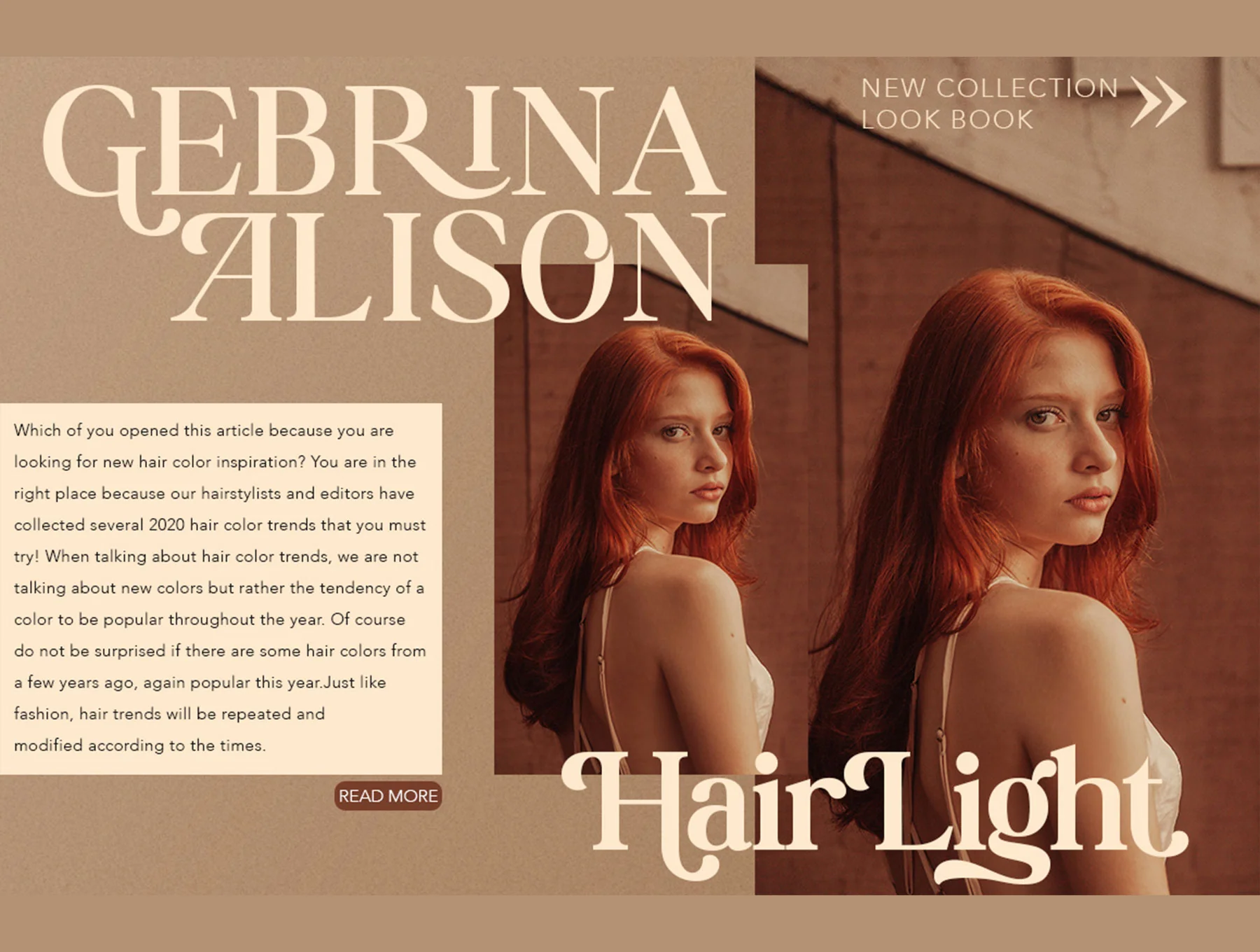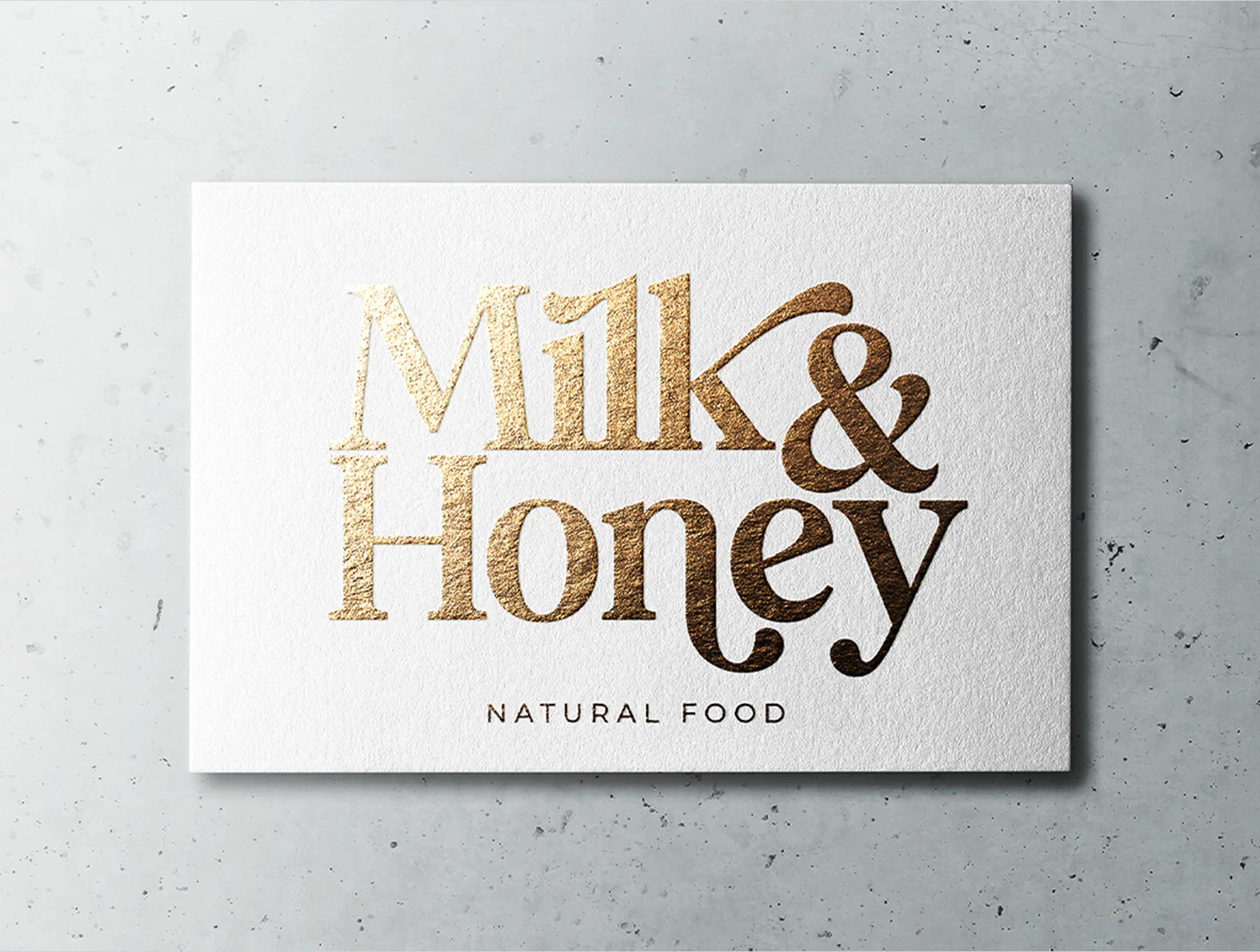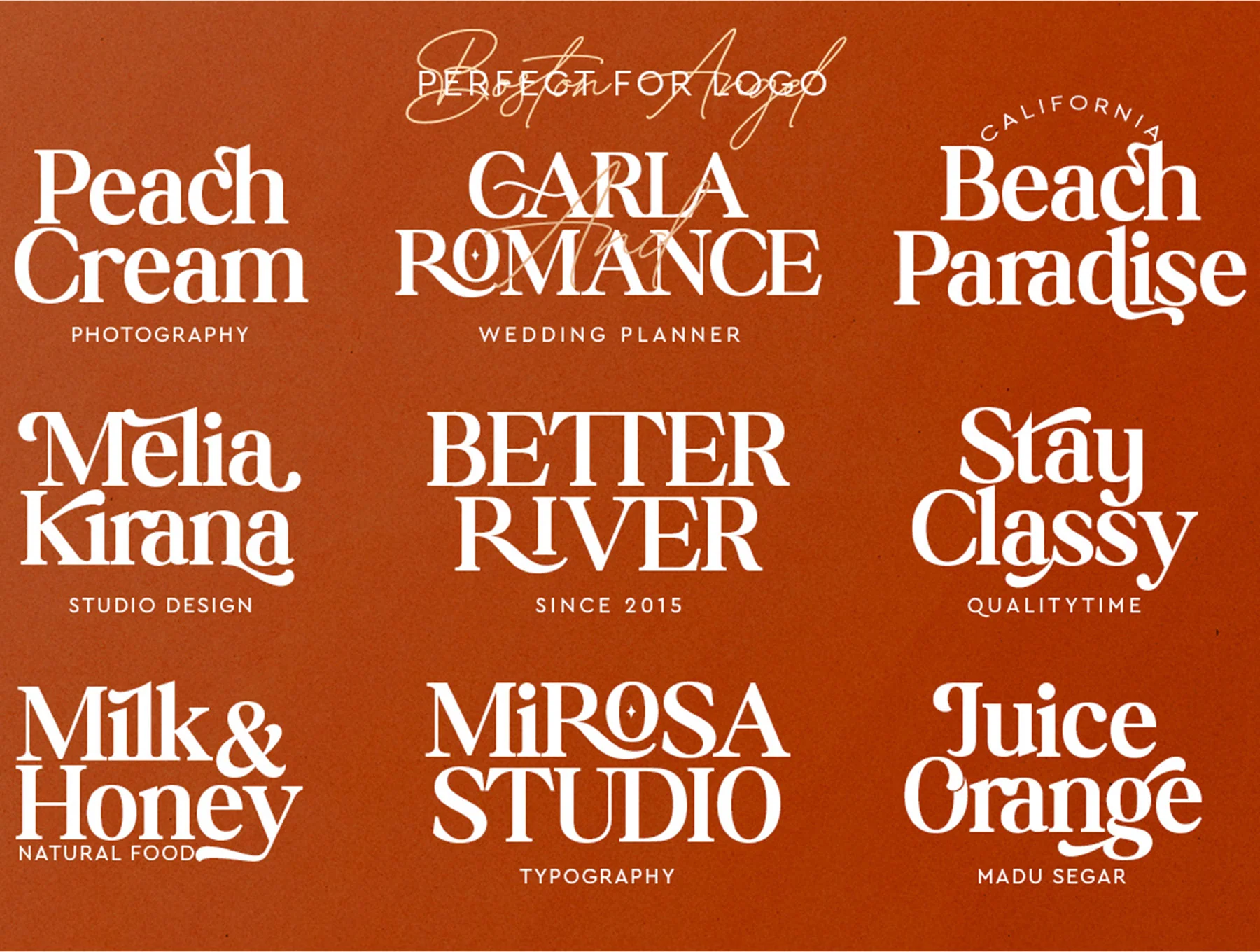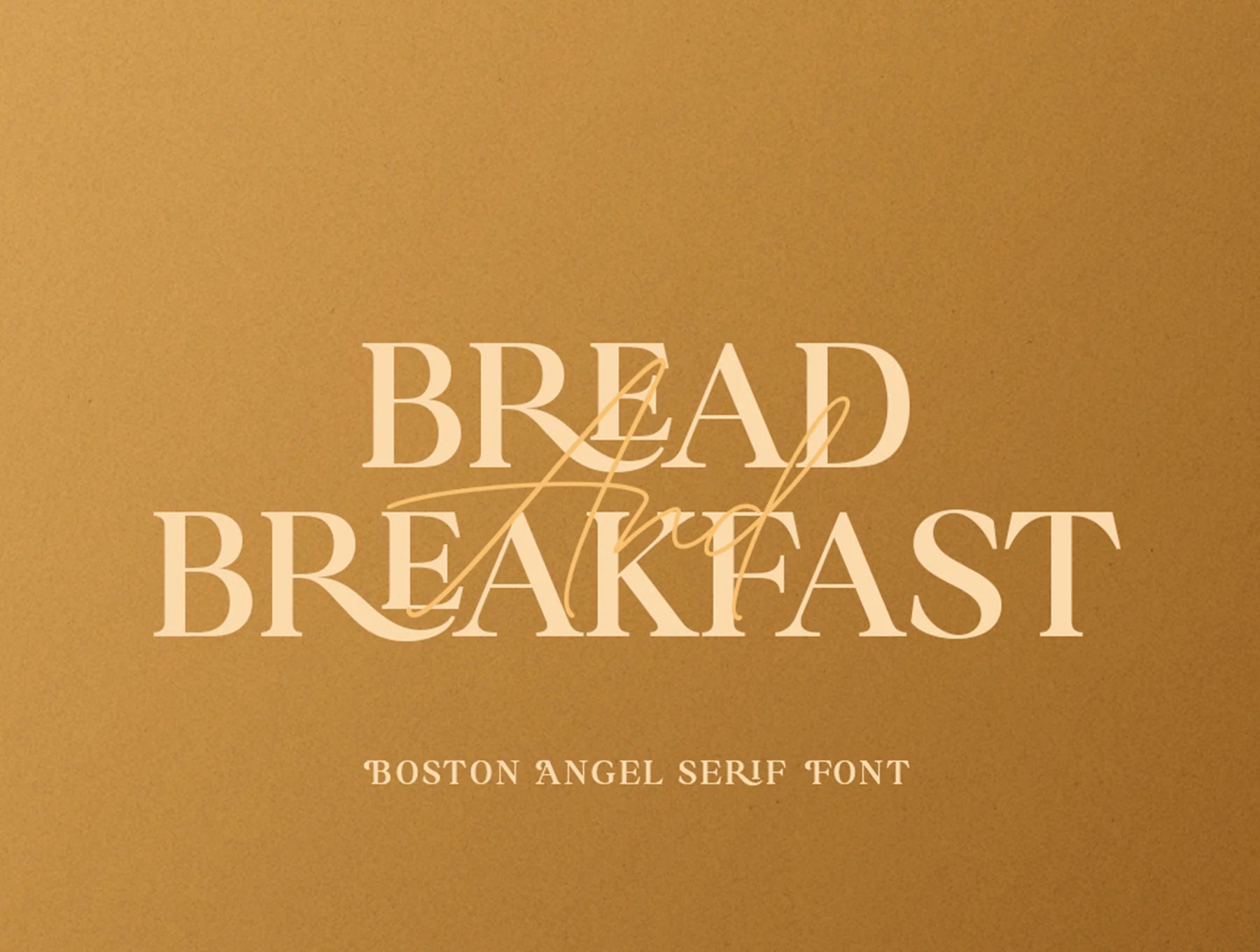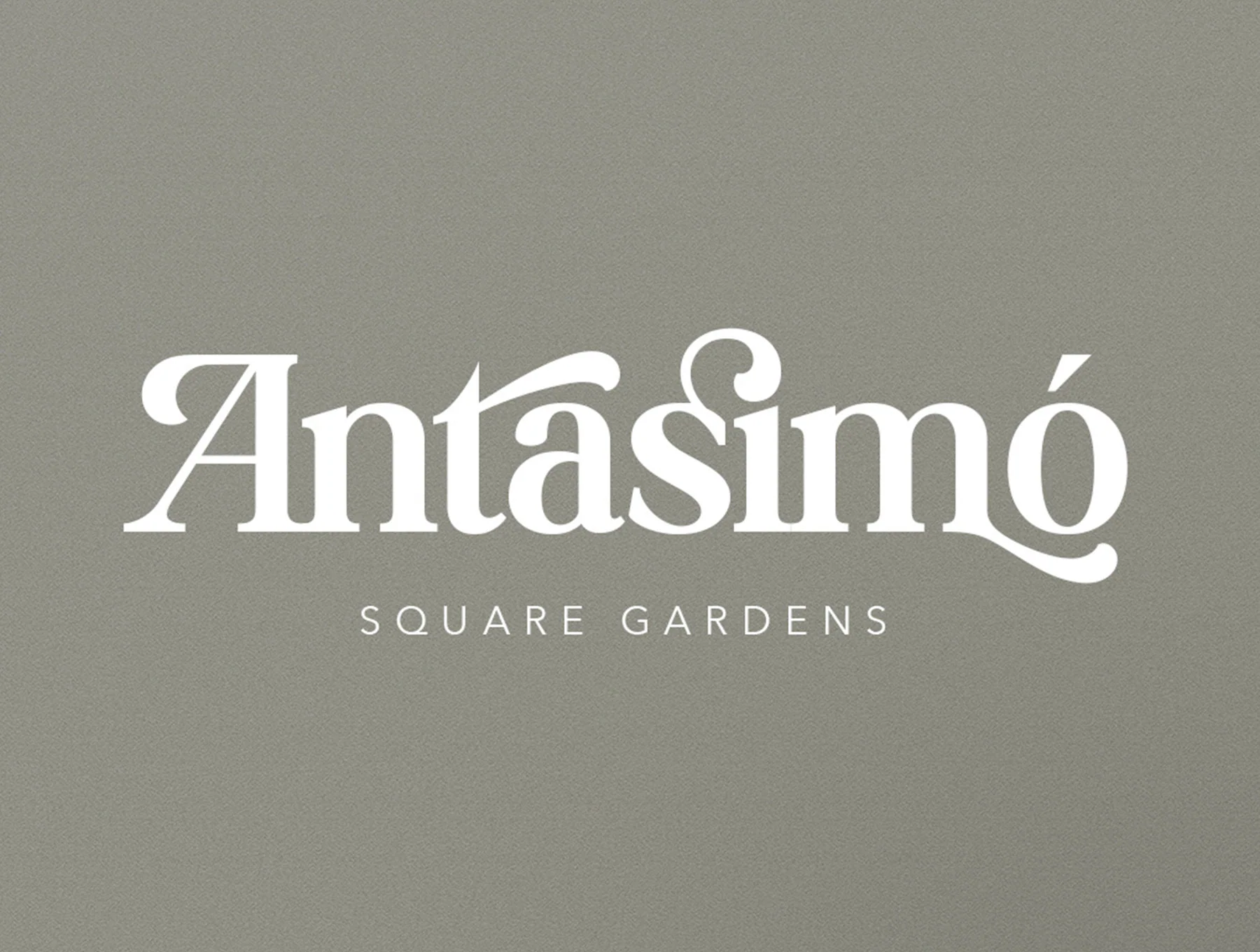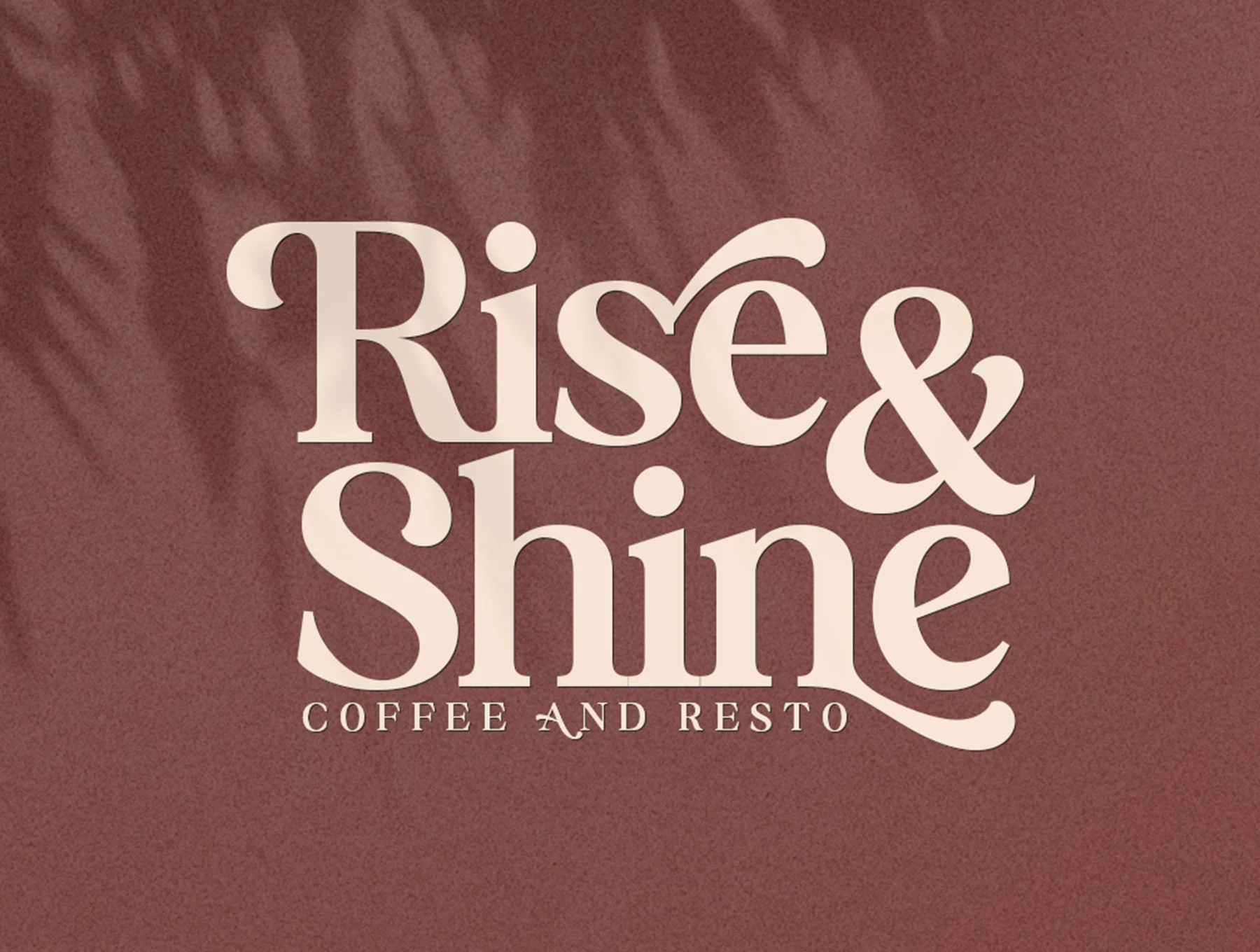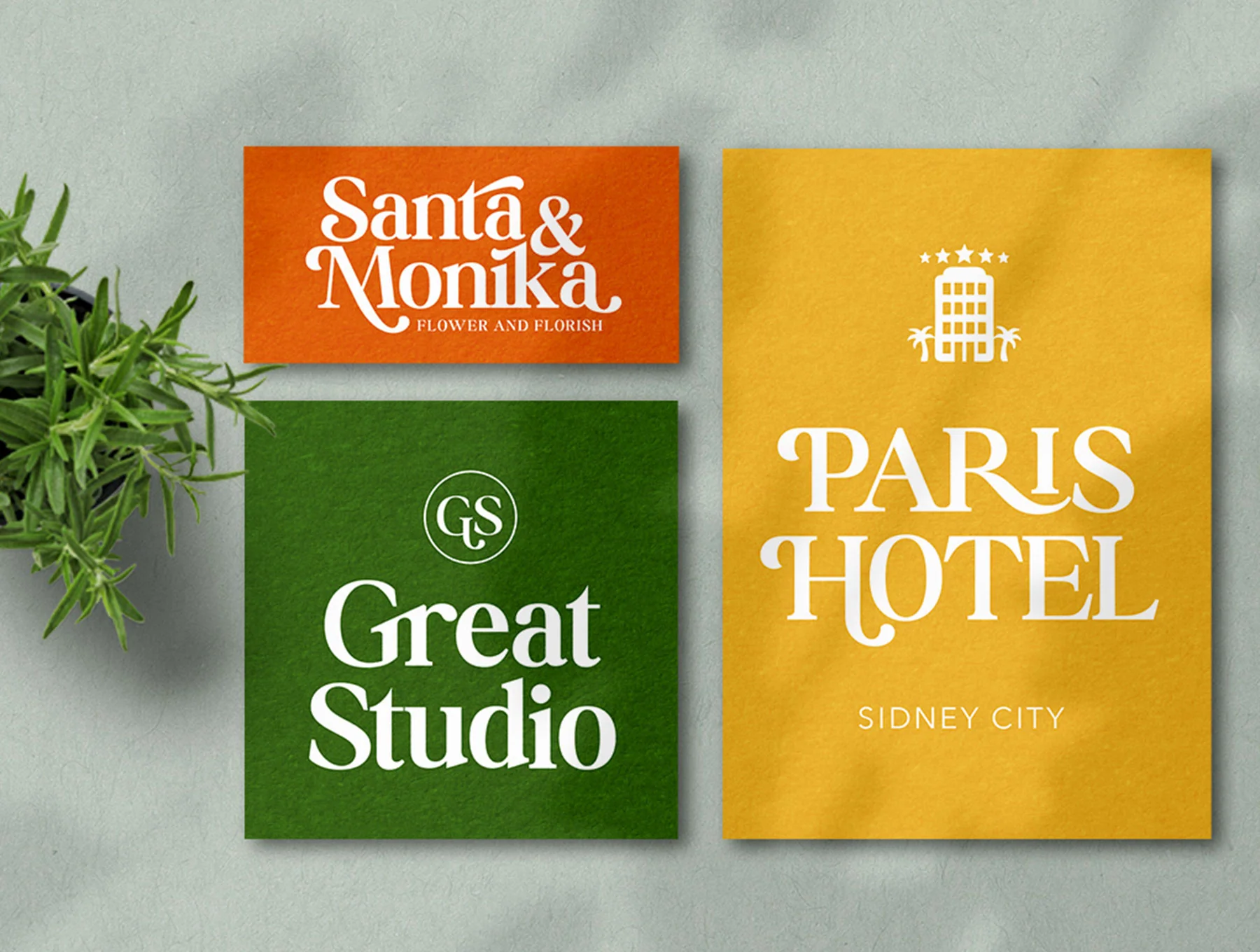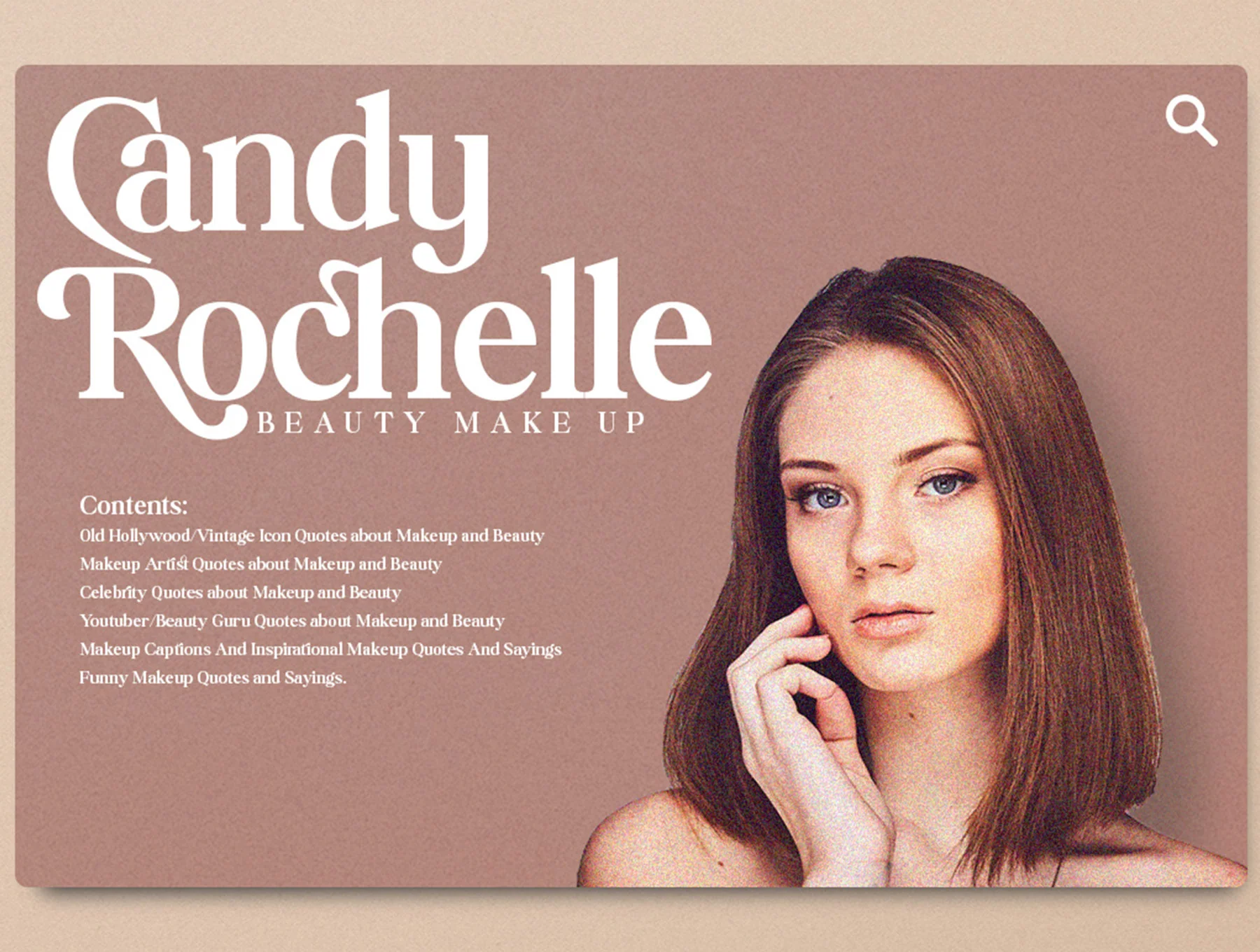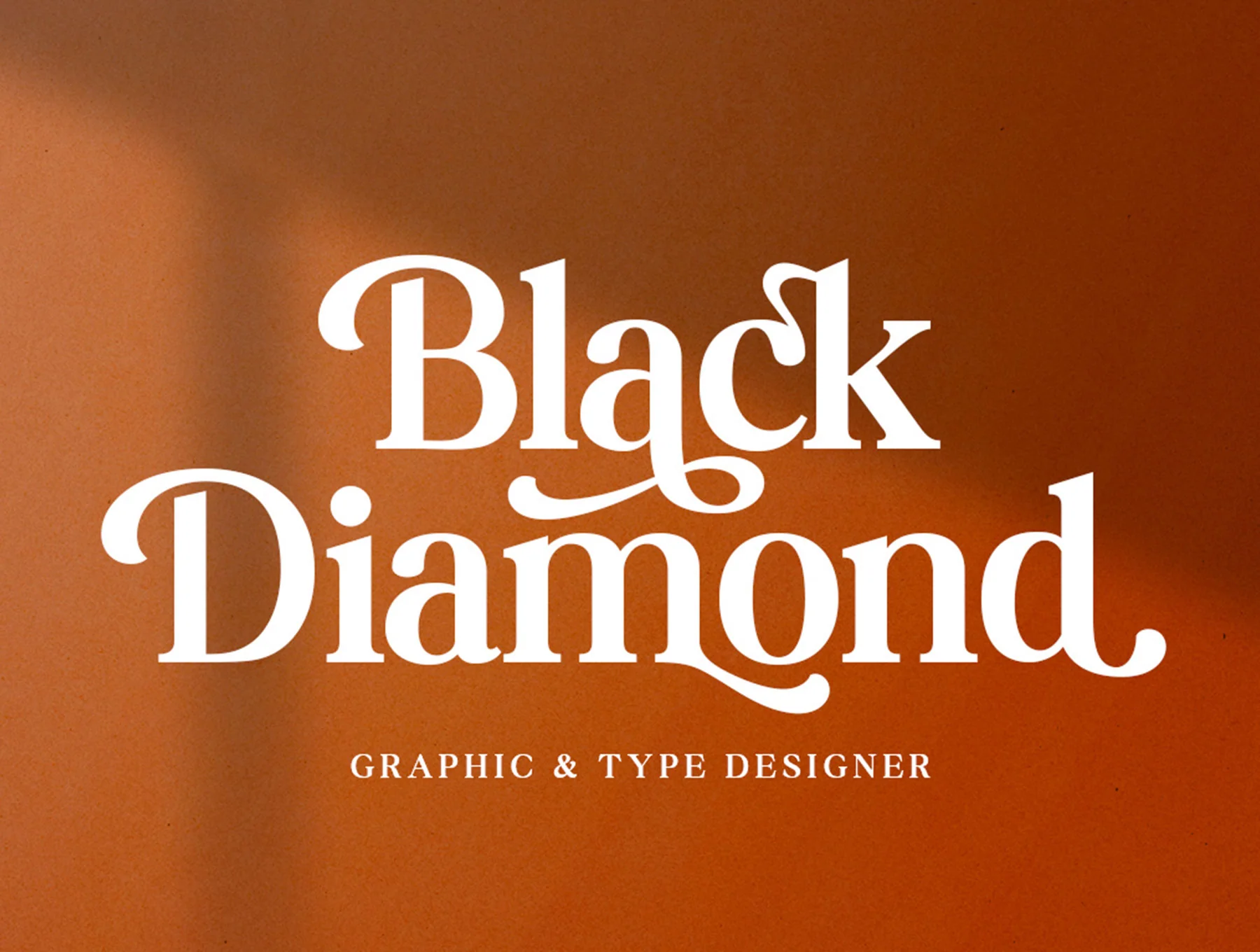
Boston Angel Font
Boston Angel Serif is a contemporary retro serif typeface
Ligature, alternate, and swash styles
Boston Angel Serif is a contemporary vintage serif with a refined, stylish feel. OpenType options include 35 ligatures and 114 alternate characters across uppercase and lowercase for elegant display typography. Ideal for logos, branding, apparel, packaging, magazine titles, ads, T-shirts, postcards, and more. Includes numbers, symbols, multilingual support, and PUA encoding.